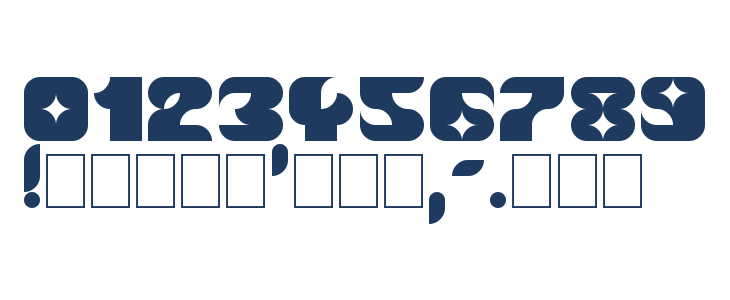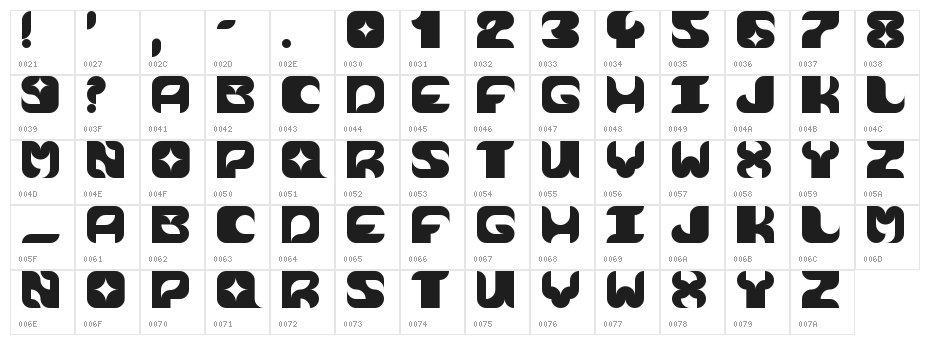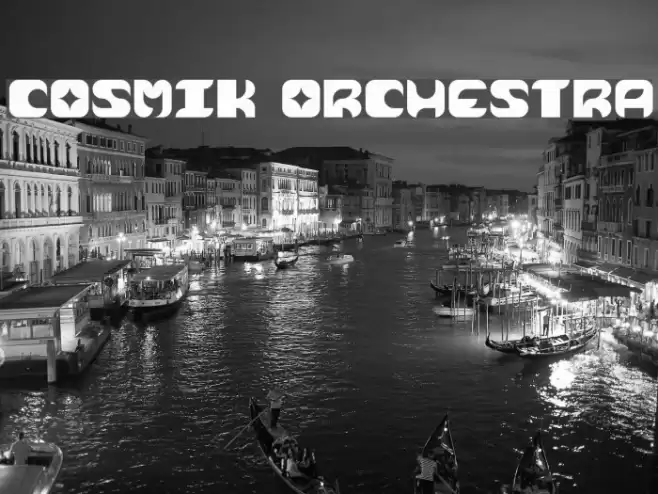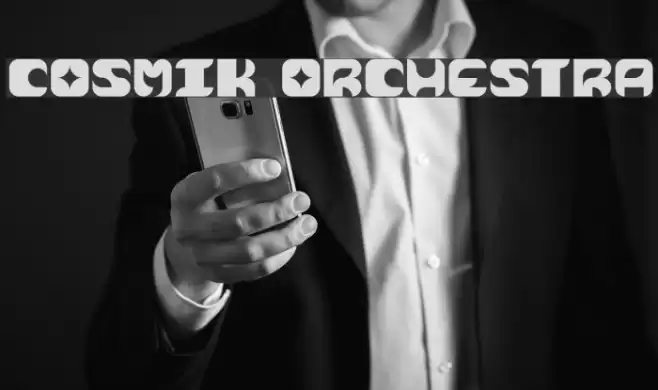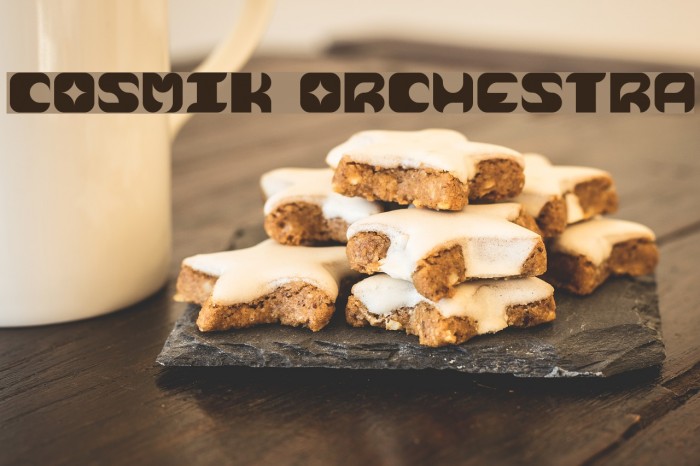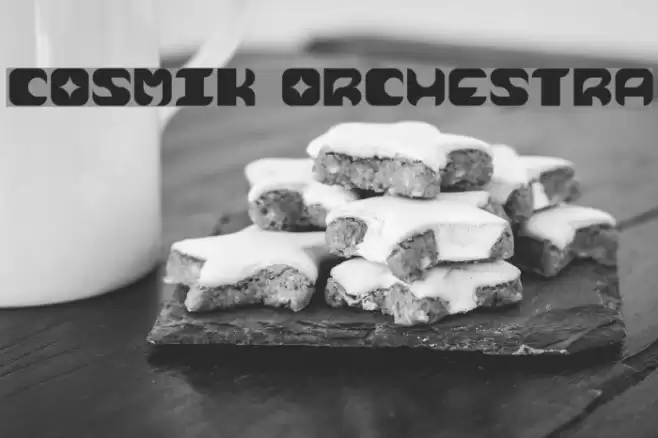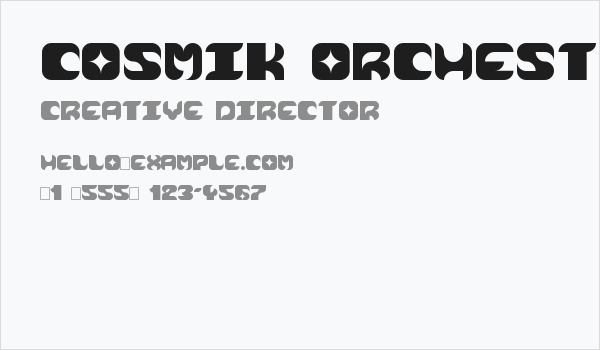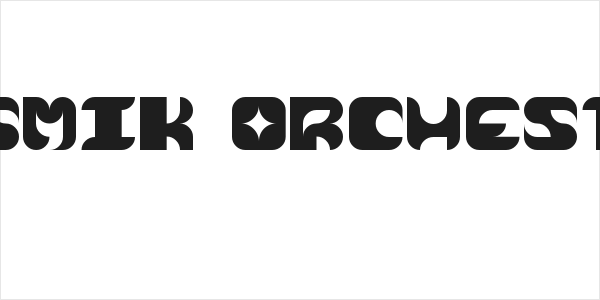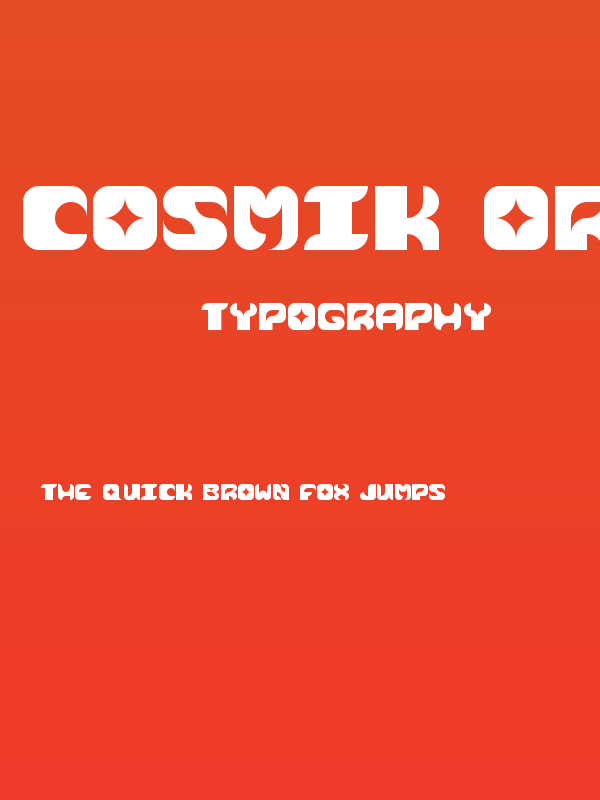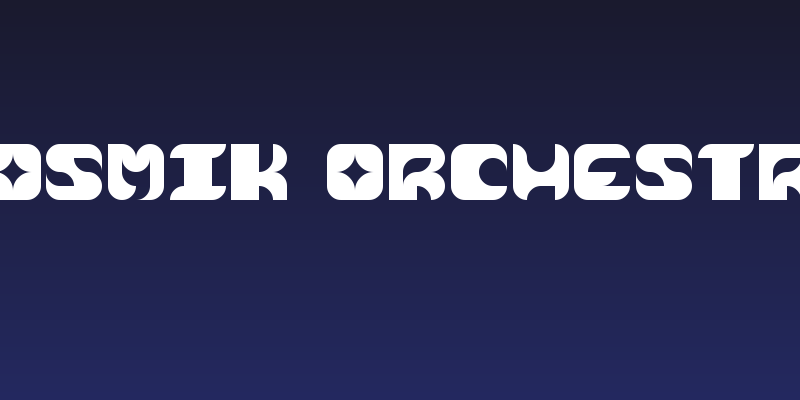
Cosmik Orchestra Font
Cosmik Orchestra Description
This font features a bold and futuristic design with geometric shapes and sharp angles. The characters are uniquely styled with a consistent thickness, giving it a strong and impactful appearance. The uppercase and lowercase letters maintain a uniformity that enhances readability while still offering a distinct visual appeal. The numbers and special characters follow the same design principles, ensuring a cohesive look across all elements. Its boldness and unique style make it stand out, ideal for projects that require a modern and eye-catching typeface.
| Proposed Projects | Ideal for sci-fi themed projects, technology branding, video game titles, and modern posters. |